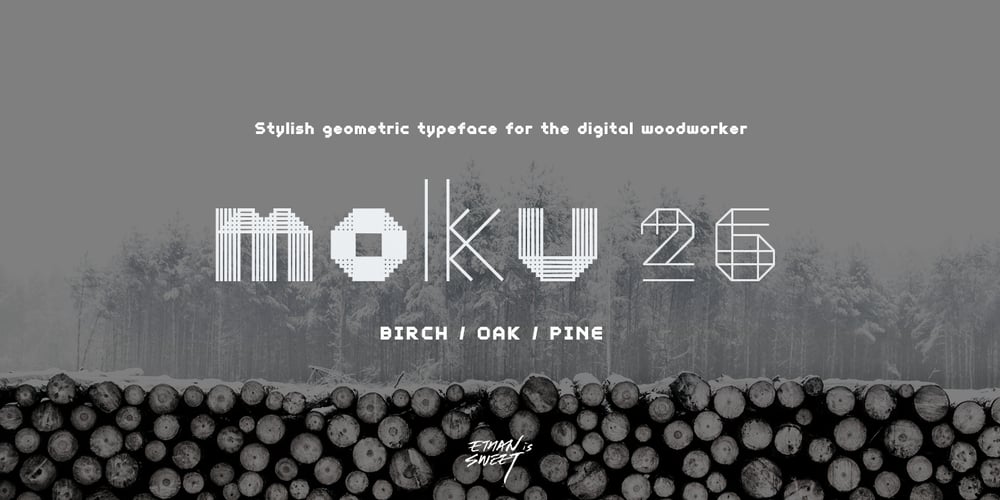
Moku26 Font Family was designed by Ethan Park and published by Ethan is Sweet. Moku26 contains 3 styles and family package options. Inspired by old fashion woodworkers, MOKU26 brings a great experimental look and sophisticated style to branding. Available in 3 styles; Birch, Oak, Pine supported in 90+ languages. Ideal for titles, logo, branding, digital and apps. Upper & lower case / Include 3 unique styles / Ligatures, currency symbols / Numerals & punctuation.